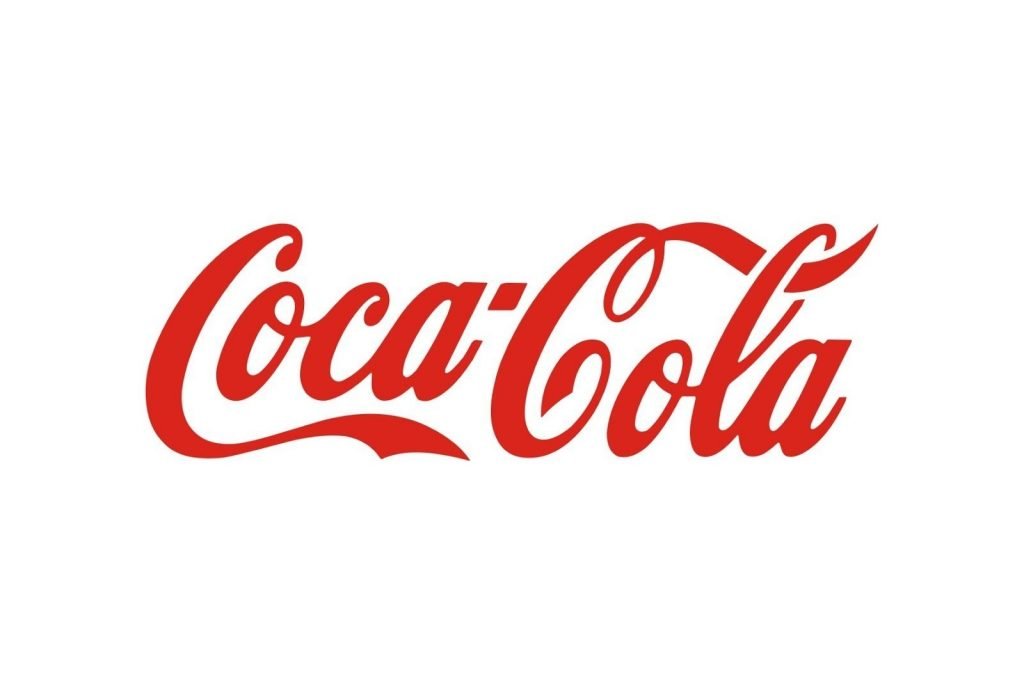
This font was the creation of Frank Mason Robinson and hs start the development in the year 1885 and styling of this typeface is really famous and it is known
Here is the Coca-Cola font that was released through Utopia. When we think of Coca-Cola, the first thing that comes to mind is the popular beverage brand, and this typeface is famously used in the brand's logo.
This font was the creation of Frank Mason Robinson and hs start the development in the year 1885 and styling of this typeface is really famous and it is known as the Spencerian script that was also used inside optima font that was the famous typeface of its period.
This font family has so many contextual and stylistic alternates that are used in google docs. We can also see the usage of this typeface in many different projects and designs.
Coca-Cola is the modern typeface that is designed by Frank Mason Robinson in the year 1885